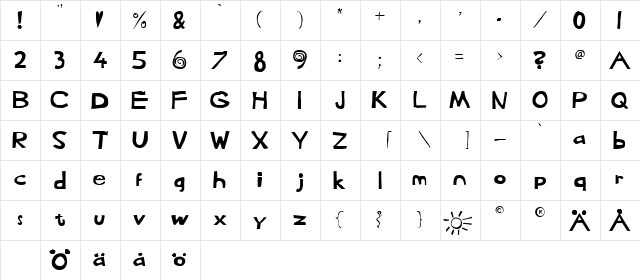
Heffaklump Regular
Design Context for Heffaklump Typeface
Heffaklump is a composed and adaptable typeface that performs quietly and consistently across a wide range of design contexts.